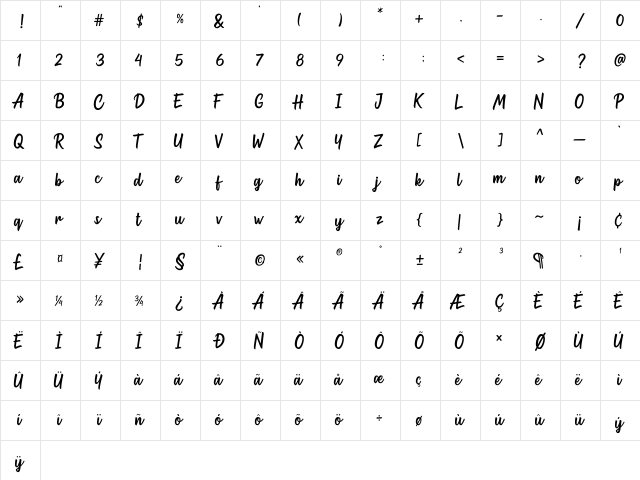
Westhouse Regular
Design Context for Westhouse Typeface
Westhouse is a composed and adaptable typeface that performs quietly and consistently across a wide range of design contexts.